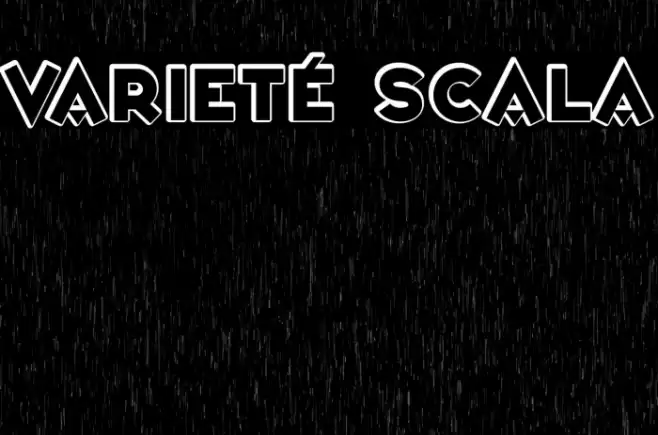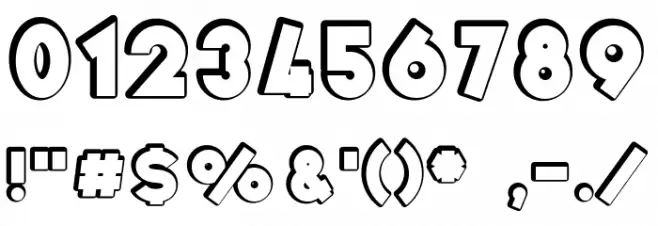
Varieté Scala Font
Varieté Scala Description
This font features a bold, geometric design with a three-dimensional effect, achieved through the use of shadowing and outlines. The uppercase letters are characterized by strong, angular lines and a consistent width, giving them a robust and impactful appearance. The numbers and special characters maintain this bold style, ensuring uniformity across all glyphs. The font's design is modern and eye-catching, making it suitable for projects that require a strong visual presence.
- Proposed Projects: Ideal for posters, headlines, logos, and branding materials that require a striking and modern look.